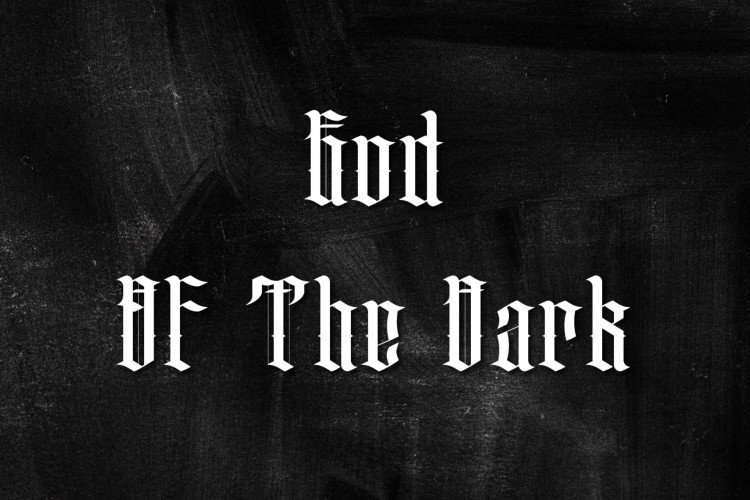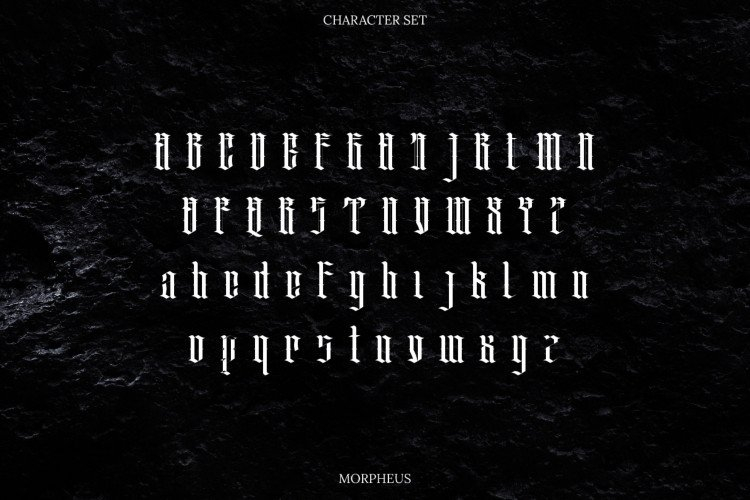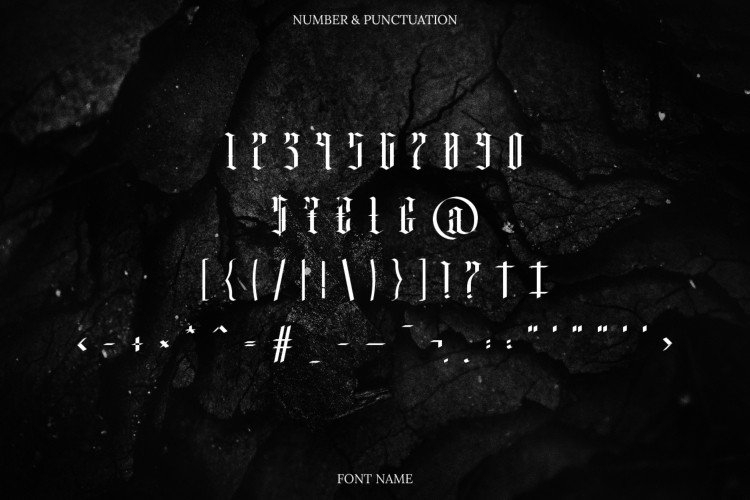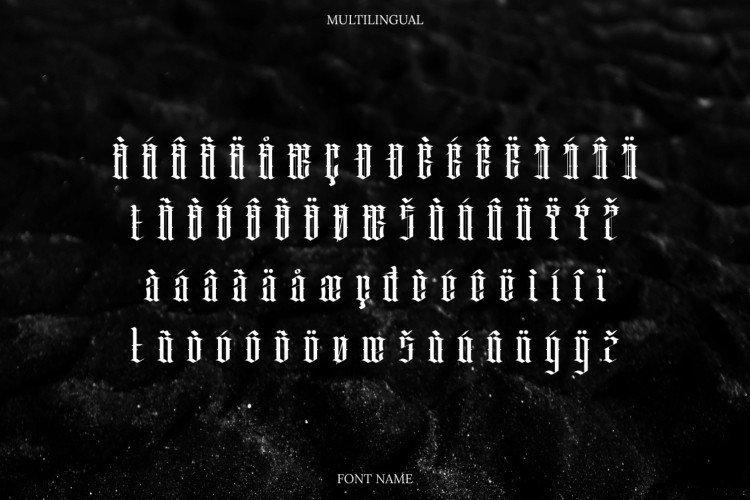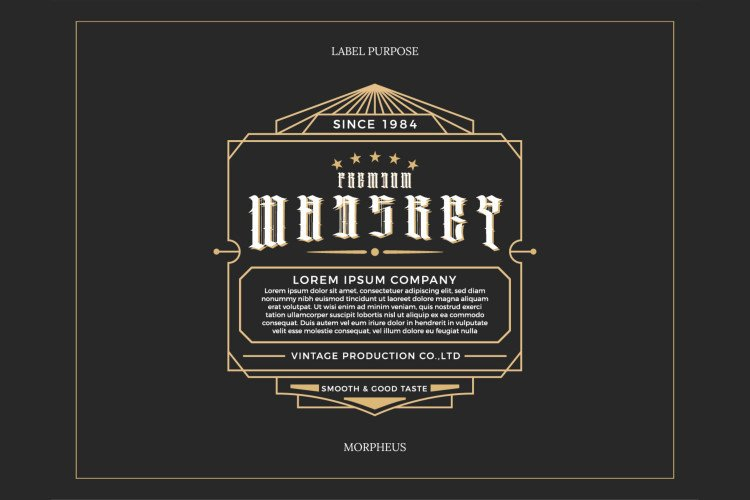
About Morpheus Font
Morpheus is a splendid blackletter font that will impress with its stylish features. Use it for product packaging, branding, or other projects that need bold and daring typography!